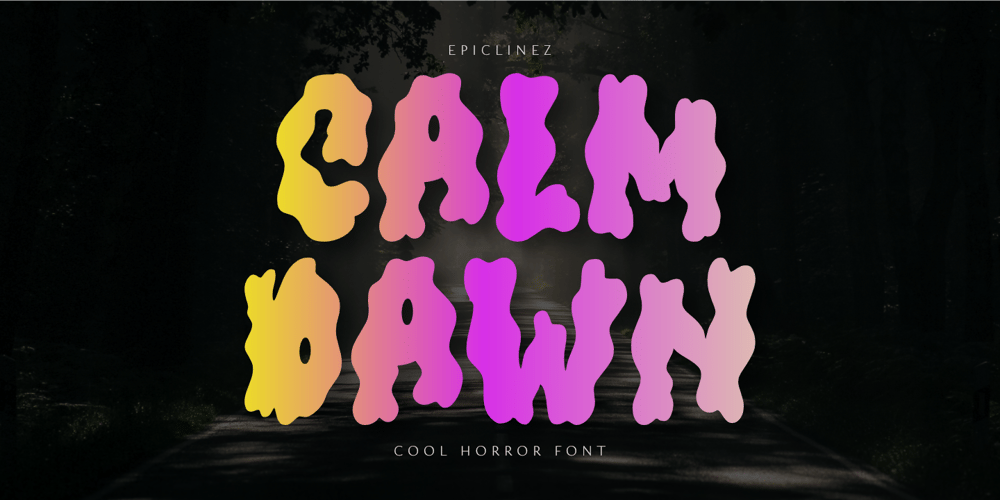
Calm Dawn
Calm Dawn font
Calm Dawn Font Family was designed by Aldy Sidik and published by Epiclinez. Calm Dawn contains 1 styles and family package options. Calm Dawn is the perfect horror display font for headlines, movie titles, and posters. Its cool, creepy style will surely give your product or service an extra boost of a scare!Calm Dawn font includes : Standard Latin All Caps Numbers, symbols, and punctuations Multilingual Support. Fully accessible without additional design software Simple Installations Works on PC & Mac Thank You.